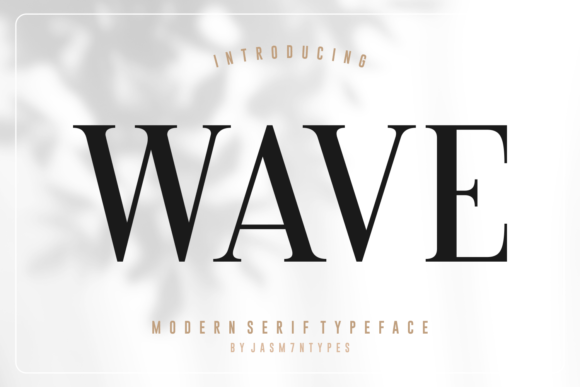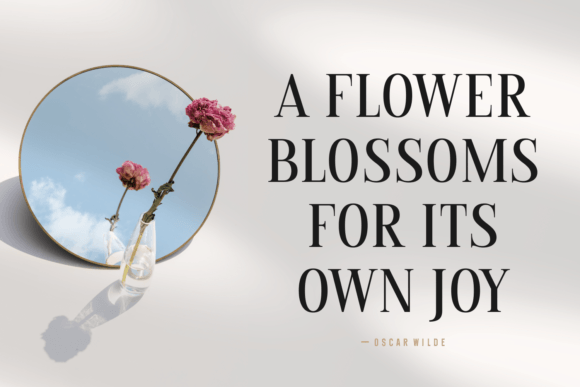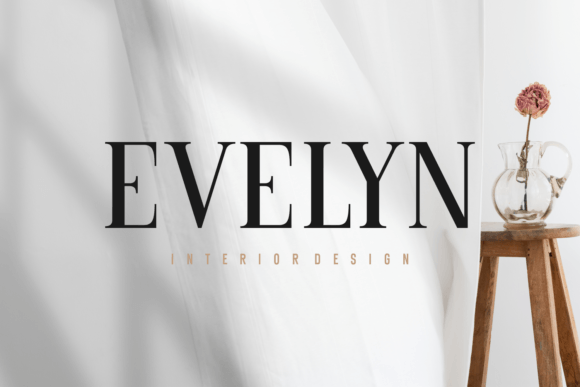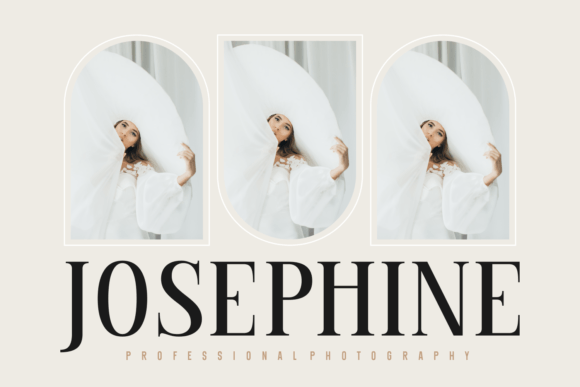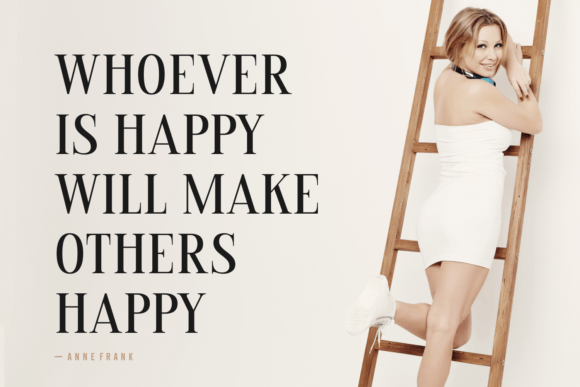
Wave Font
Introducing “Wave,” a sleek and modern serif font that effortlessly blends sophistication with contemporary style. With clean lines and subtle curves, Wave brings a timeless elegance to your typography. Ideal for projects where a refined, yet modern aesthetic is desired, this font is versatile and perfect for various applications, from professional documents to stylish branding. Elevate your design with Wave, where classic meets contemporary in perfect harmony.